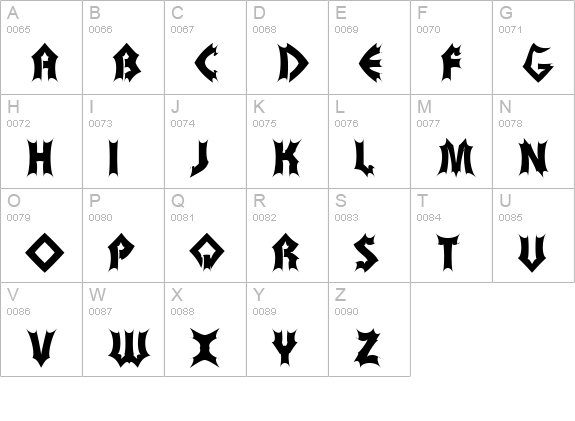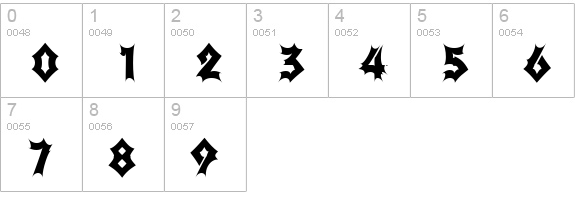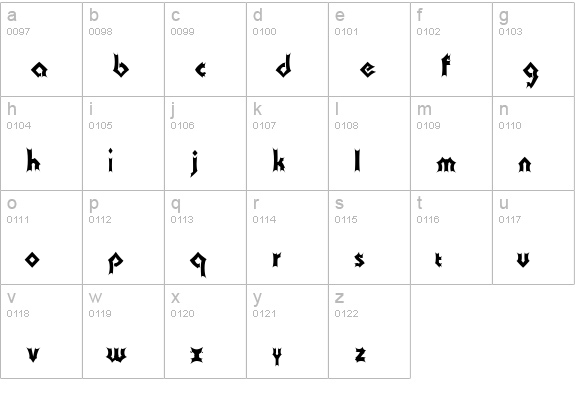
Transylvania-Regular Font Details
Transylvania-Regular is the standard, neutral variant in the Transylvania typeface family \xE2\x80\x94 well suited to general body text, paragraphs, and standard typographic work.
Introducing Transylvania-Regular font, a truly captivating typeface that will transport you to the mysterious and enchanting land of Transylvania. This font embodies the essence of the region, with its gothic-inspired design and elegant yet haunting curves. Transylvania-Regular is the perfect choice for projects that demand a touch of darkness and intrigue. Whether you're designing a Halloween party invitation, creating a spooky poster, or adding a touch of mystery to your branding materials, this font will leave a lasting impression. What sets Transylvania-Regular apart is not only its striking aesthetics but also its accessibility. We are thrilled to offer this font to you completely free of charge. That's right, this extraordinary typeface is freely available to download at FontsMarket.com. Now you can bring the allure of Transylvania into your designs without any financial constraints. With Transylvania-Regular, your creativity knows no bounds. Its versatility allows it to be used in a wide range of projects, from digital designs to physical prints. The clean and well-defined letterforms ensure legibility, even at smaller sizes, making it suitable for both headlines and body text. So, whether you're a seasoned designer looking to add a touch of darkness to your work or a beginner seeking a font that makes a statement, Transylvania-Regular is the perfect choice. Download it today from FontsMarket.com and unleash your imagination in the enigmatic world of Transylvania.